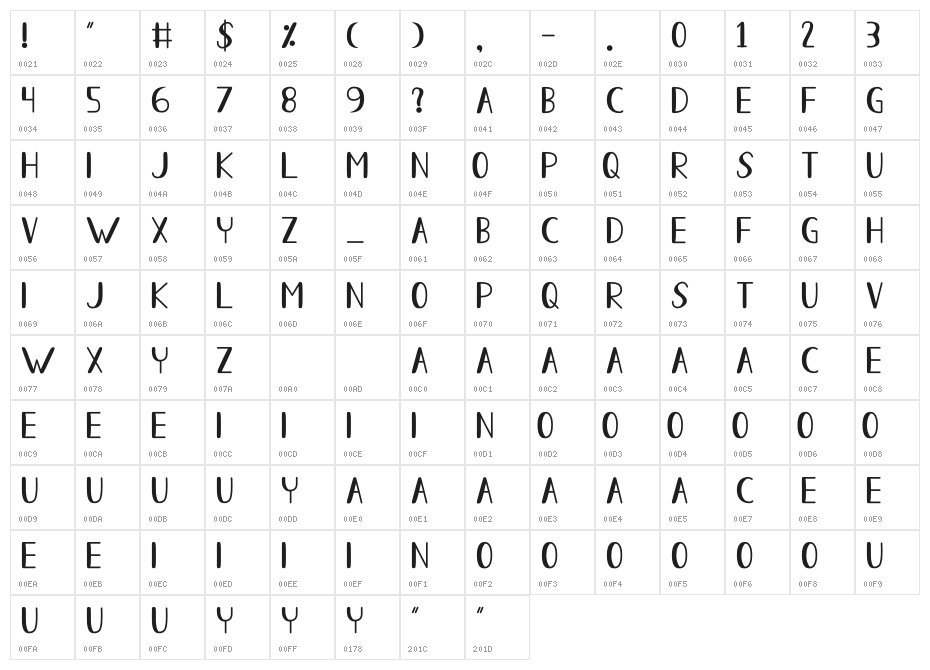
Allure Of The Sun Font
Allure Of The Sun Description
This font features a playful and whimsical design with a handwritten feel. The characters are slightly irregular, giving it a charming and approachable appearance. The strokes are smooth and rounded, with a consistent thickness that maintains readability while adding a touch of personality. The uppercase and lowercase letters are well-balanced, and the numbers are clear and distinct. Special characters are creatively designed, adding to the font's unique style. Overall, it exudes a friendly and casual vibe, making it suitable for a variety of creative projects.
| Proposed Projects | Ideal for children's books, greeting cards, playful branding, and casual invitations. |